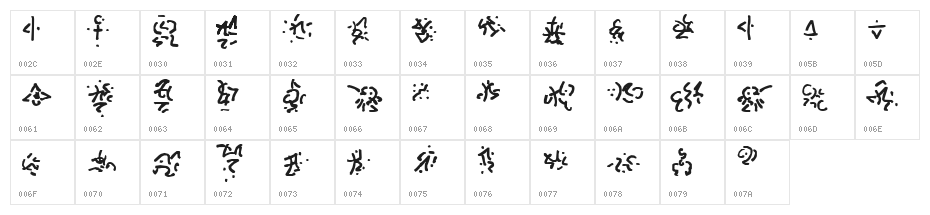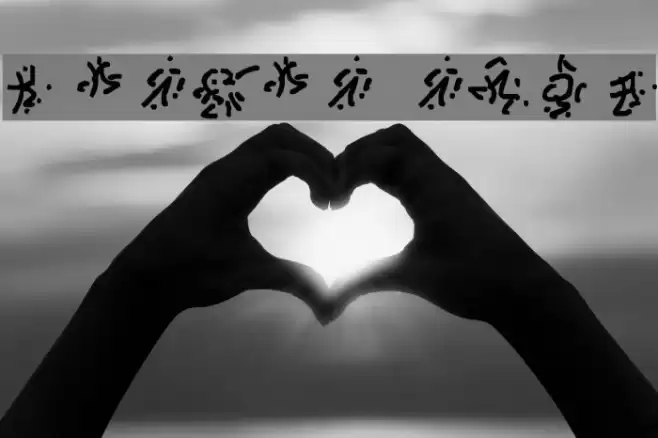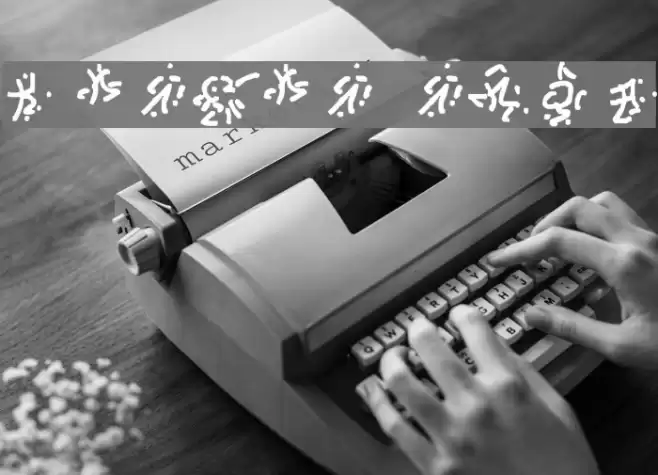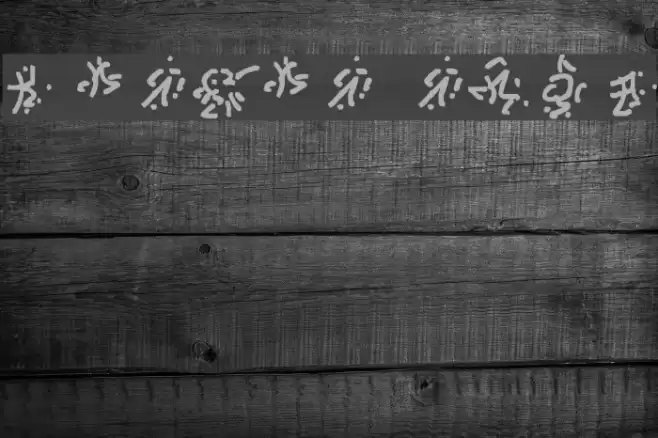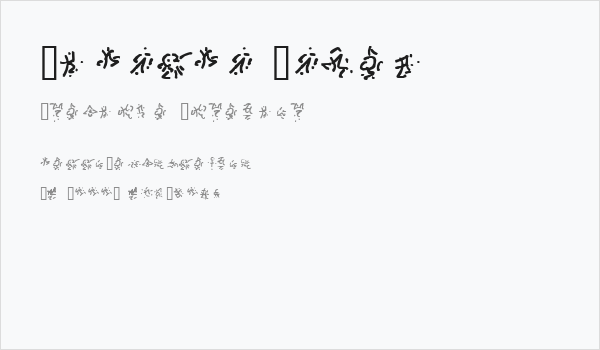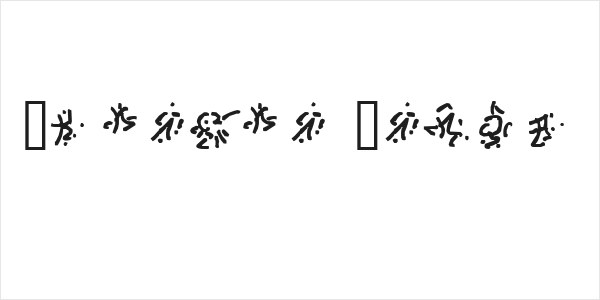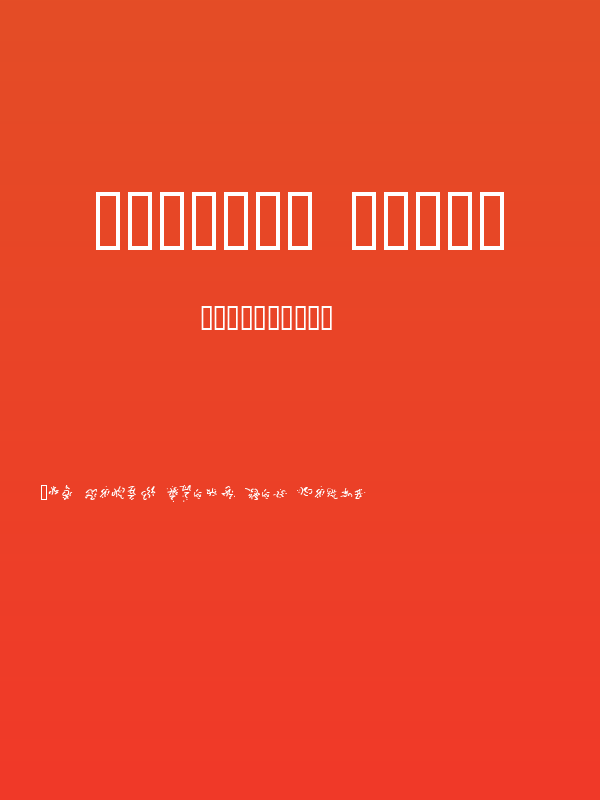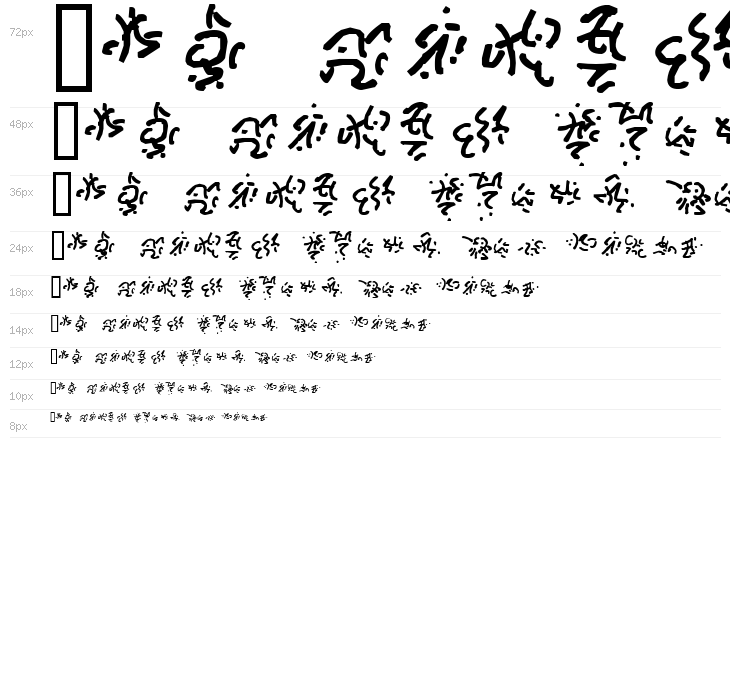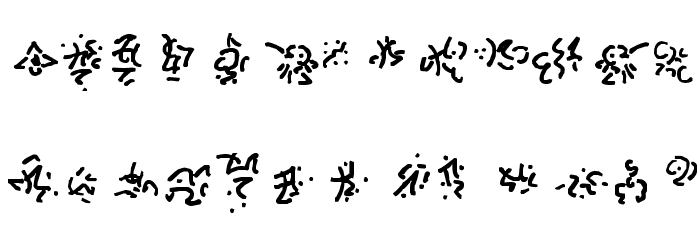
Cthulhu Runes Font
Cthulhu Runes Description
This font features a series of intricate and mysterious symbols that resemble ancient runes or glyphs. Each character is uniquely designed with a combination of curves, dots, and lines, creating an enigmatic and cryptic appearance. The style is reminiscent of arcane scripts, often associated with fantasy or mythological themes. The characters are densely packed with details, giving them a complex and textured look. This font is perfect for projects that aim to evoke a sense of mystery, magic, or otherworldly elements.
| Overall Style | Mystical, Enigmatic, Fantasy |
| Use Case | Logos, Decorative elements, Themed graphics |
| Proposed Projects | Suitable for fantasy book covers, game designs, mystical event invitations, or any project requiring an enigmatic and magical touch. |